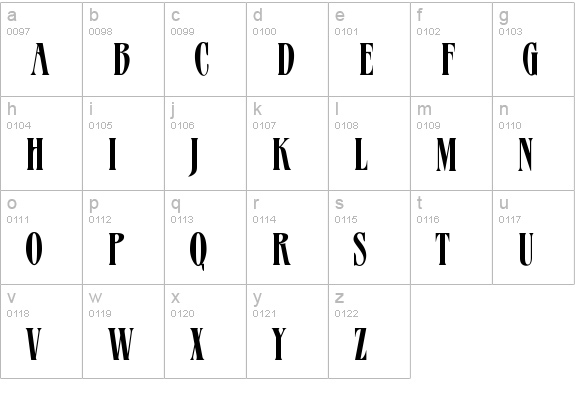
Aegina Font Details
Aegina font is a stunning typeface that exudes elegance and sophistication. With its sleek lines and modern aesthetic, Aegina font is perfect for a wide range of design projects, from branding to editorial design. This versatile font features a unique blend of classic and contemporary elements, making it ideal for creating eye-catching headlines, logos, and more. Aegina font is sure to make your designs stand out and leave a lasting impression on your audience. What's even better is that Aegina font is available for free download at FontsMarket.com. So you can easily add this beautiful typeface to your collection without breaking the bank. Don't miss out on the opportunity to enhance your designs with the timeless beauty of Aegina font.